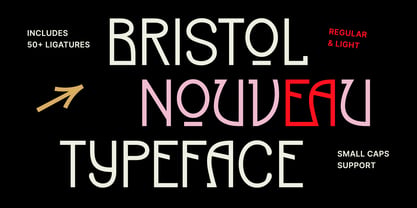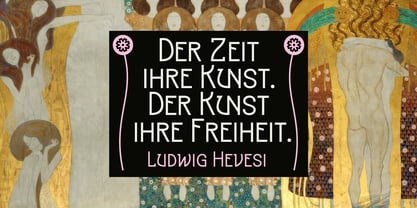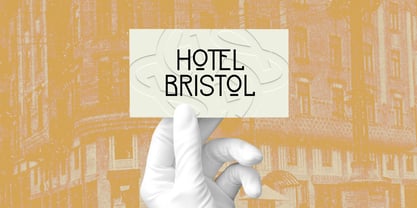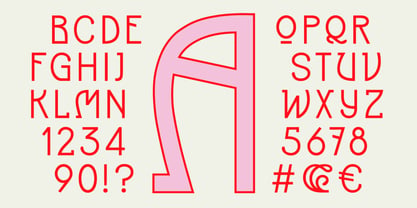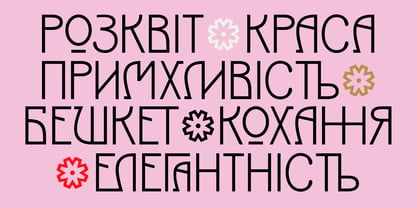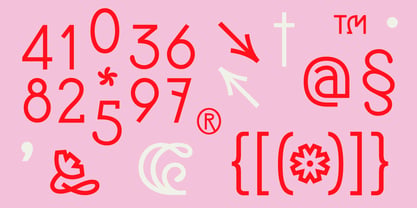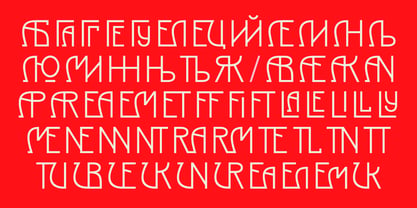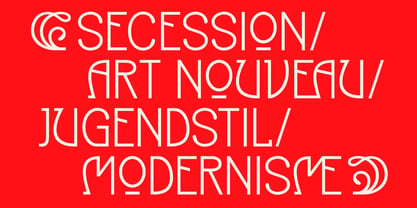
Bristol Nouveau
by Anastasiia Oliinyk
Bristol Nouveau is a decorative Art Nouveau typeface inspired by the historic “Hotel Bristol” inscription from a 1906 building in Chernivtsi, Ukraine. It combines ornamental elegance with modern usability, offering extensive ligatures and small caps for flexible design. The font is ideal for headlines, posters, logos, and packaging, adding distinction and clarity to projects in fashion, lifestyle, and branding.
Anastasia Oliynyk is a Ukrainian typeface designer specializing in Latin and Cyrillic scripts. She explores the expressive potential of type through advanced OpenType features. With a background in graphic design, Anastasia seeks to evoke emotion through the perception of signs and symbols. At the same time, the rich Ukrainian typographic heritage inspires her to reinterpret letterforms and integrate them into global contexts.